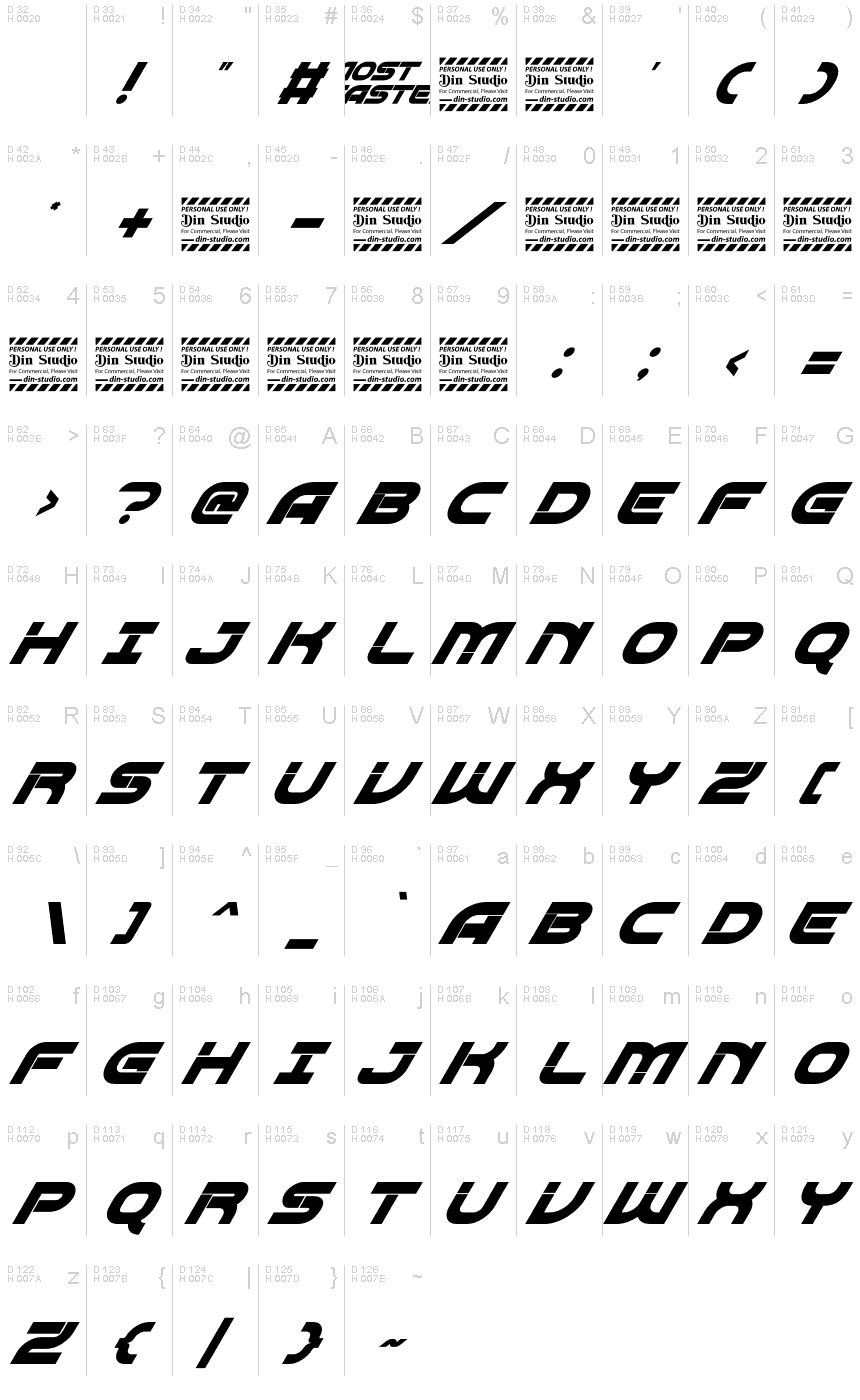
Most Faster Personal Use
Unleash the dynamic energy of "Most Faster," a font meticulously crafted by Din Studio that radiates modernity and strength. Designed as a display font, "Most Faster" boasts an expanded bold weight that commands attention, making it an instant focal point in any visual composition.
The techno style of this typeface marries the precision of digital design with the adrenaline of speed, characterized by its sleek lines and sharp angles. Its aesthetic is unapologetically contemporary, speaking to a fast-paced world where clarity and impact are paramount.
"Most Faster" is not merely a font; it's an embodiment of forward momentum. Its presence in creative projects can be transformative – ideal for cutting-edge branding, compelling advertising campaigns, or any digital platform seeking to leave a lasting impression.
Given its boldness and expanded width, this typeface works exceptionally well on large-scale displays where it can truly shine without losing legibility. Whether you're crafting eye-catching headlines or looking to inject zest into logos and titles, "Most Faster" delivers with undeniable power and style.